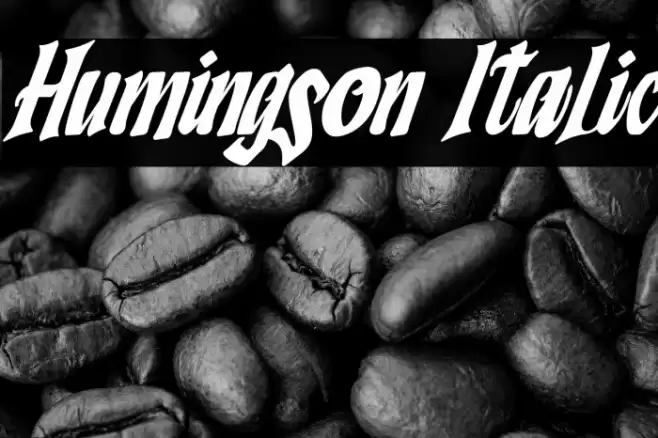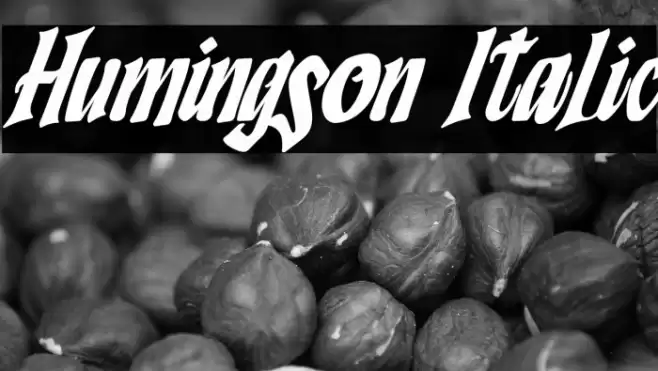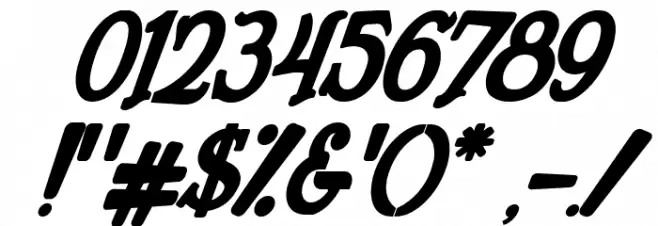
Humingson Italic Font
Humingson Italic Description
This font features a bold and dynamic style with a strong italic slant, giving it a sense of movement and energy. The characters are sharply defined with high contrast between thick and thin strokes, creating a dramatic and eye-catching appearance. The uppercase letters are particularly striking, with angular forms and pointed serifs that add to the font's boldness. The lowercase letters maintain the same energetic style, with fluid connections and a consistent slant. The numerals and special characters are designed to match the overall aesthetic, ensuring a cohesive look across all text elements.
A bold, italic font with high contrast and dynamic, angular forms from Uncategorized fonts.
- Proposed Projects: Ideal for use in headlines, posters, branding, and any project requiring a bold, energetic typeface.